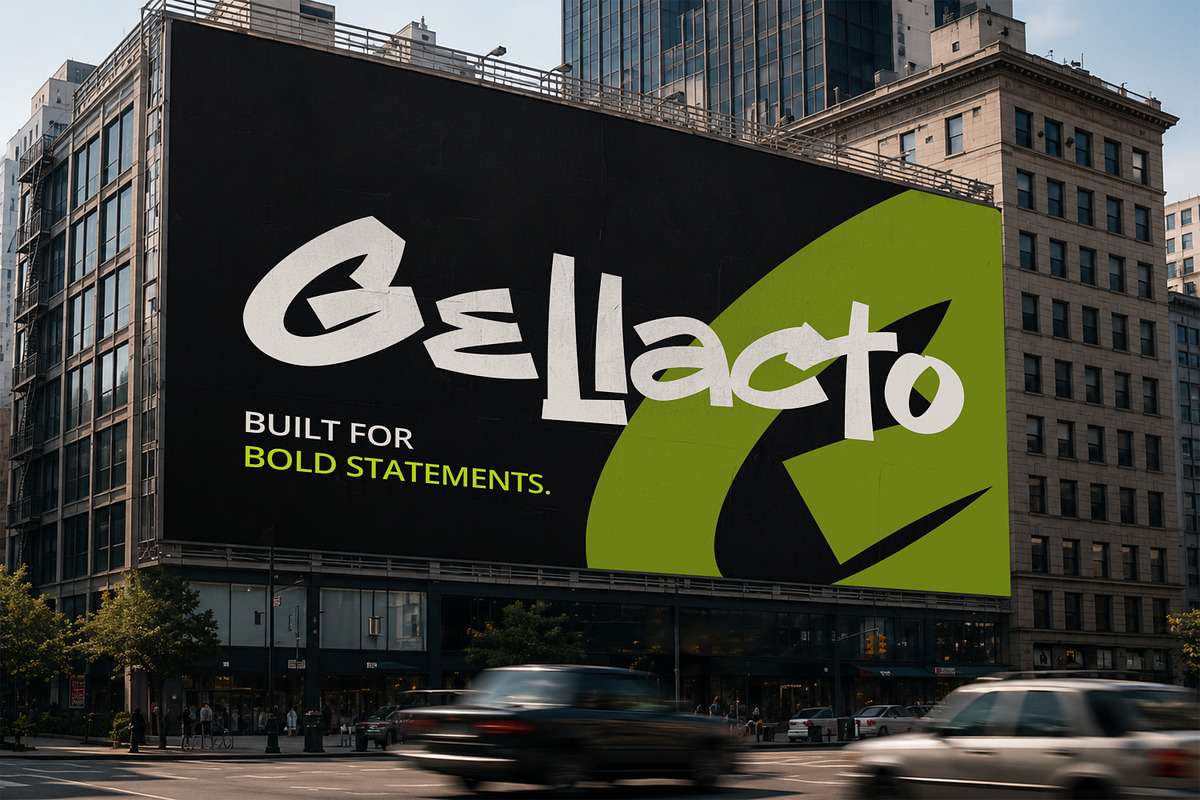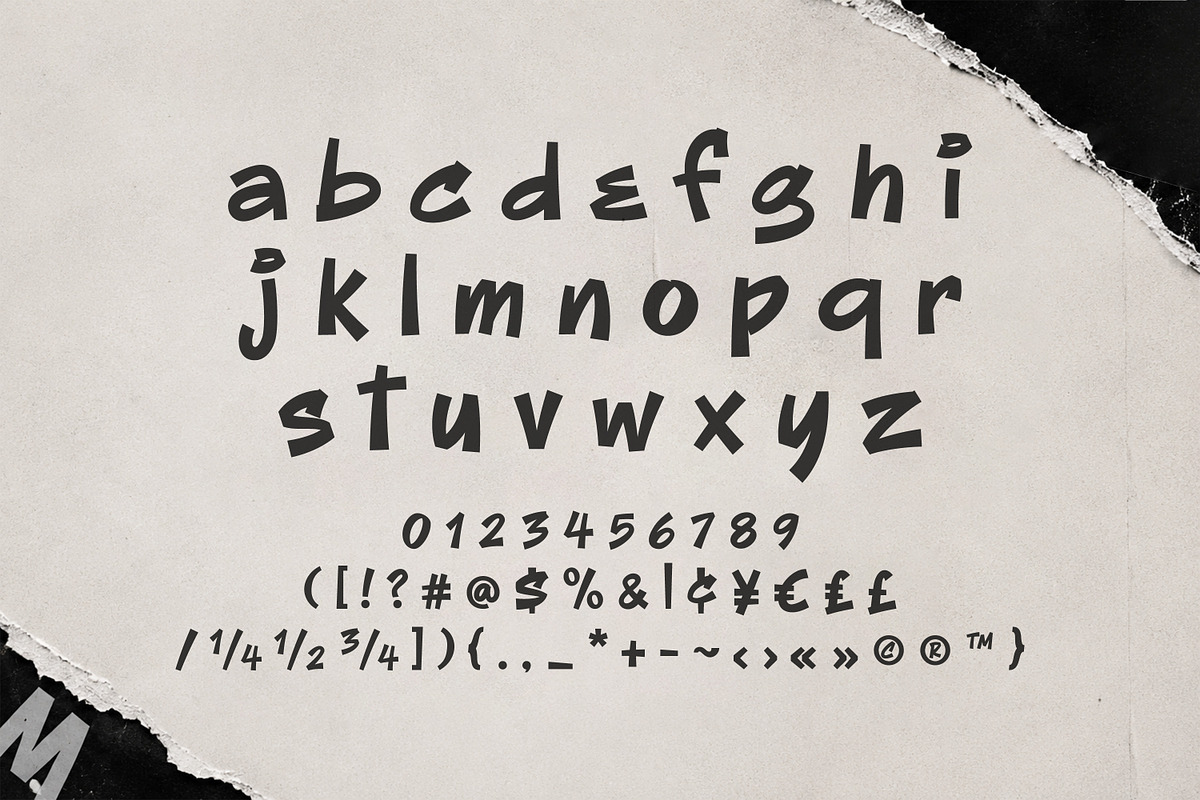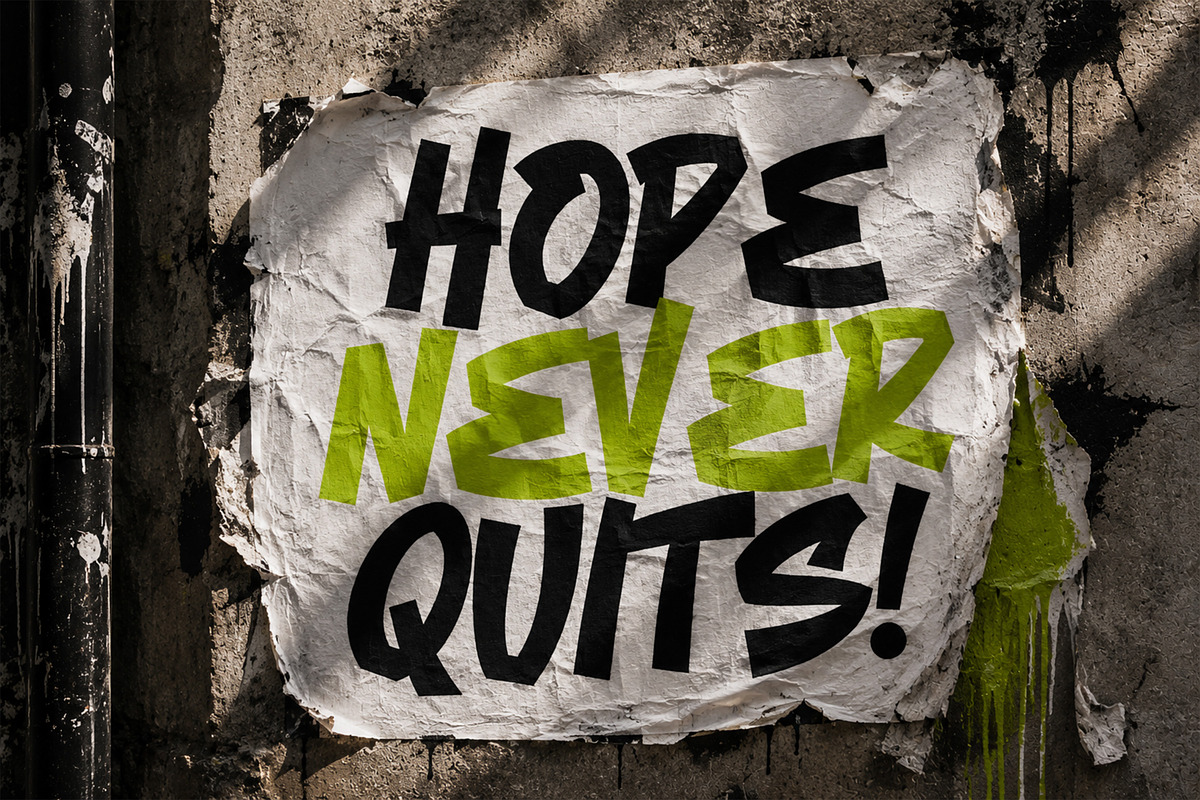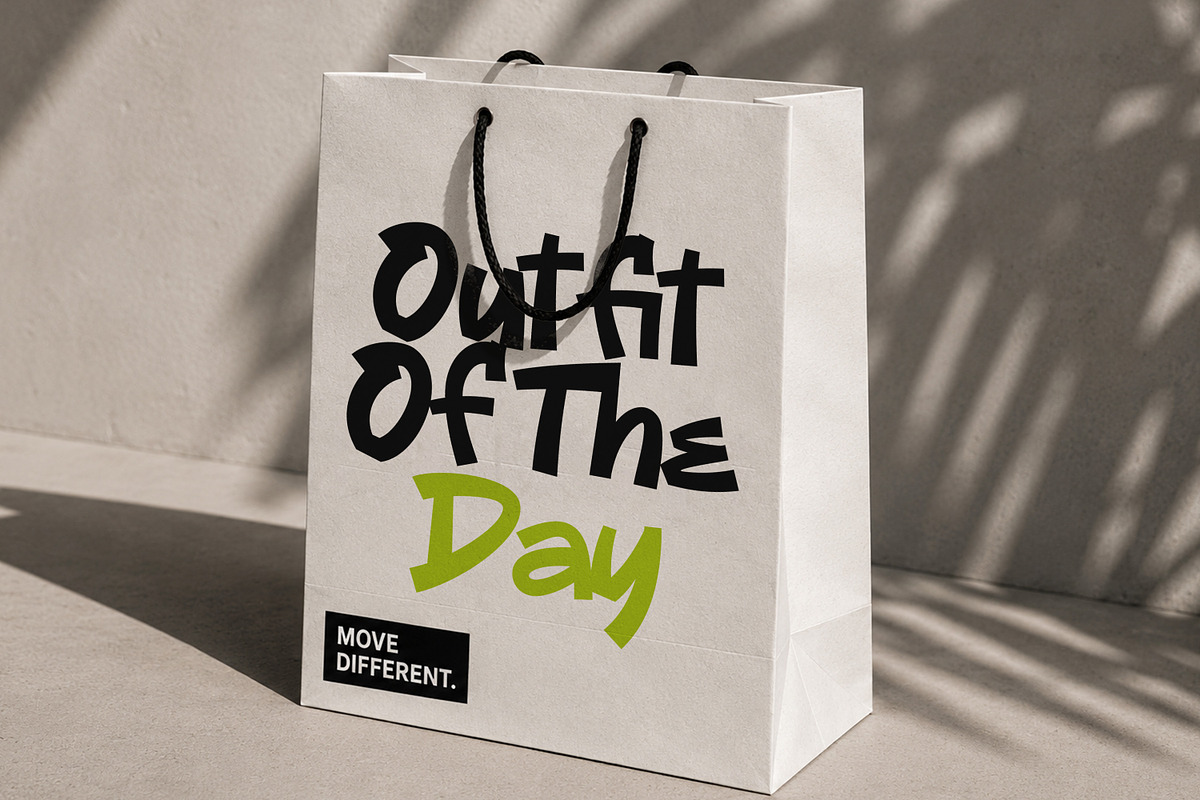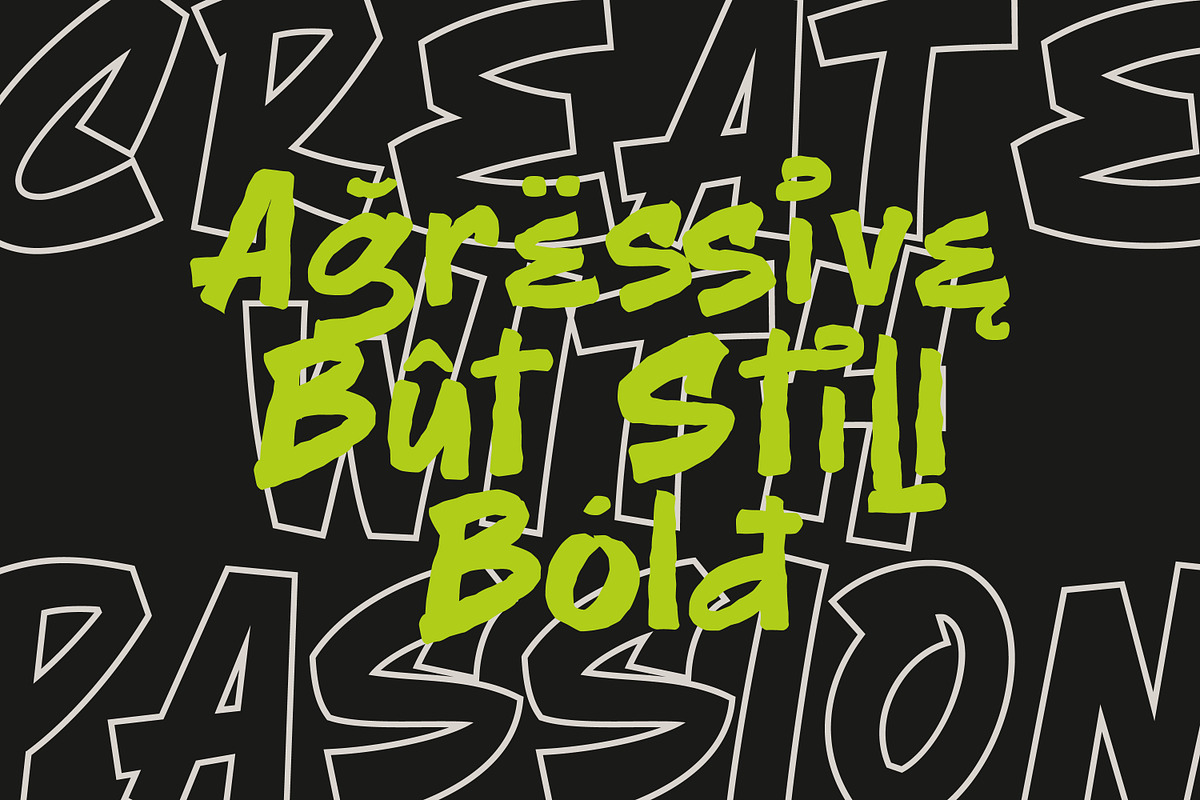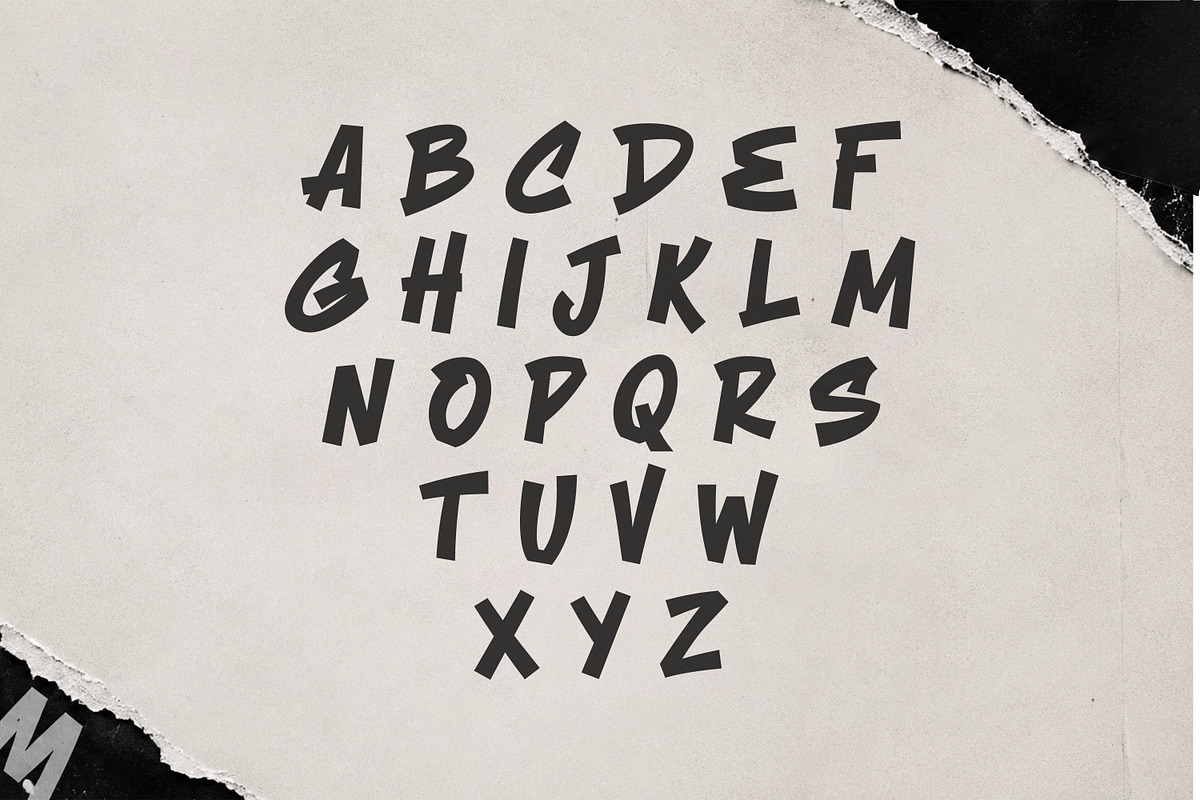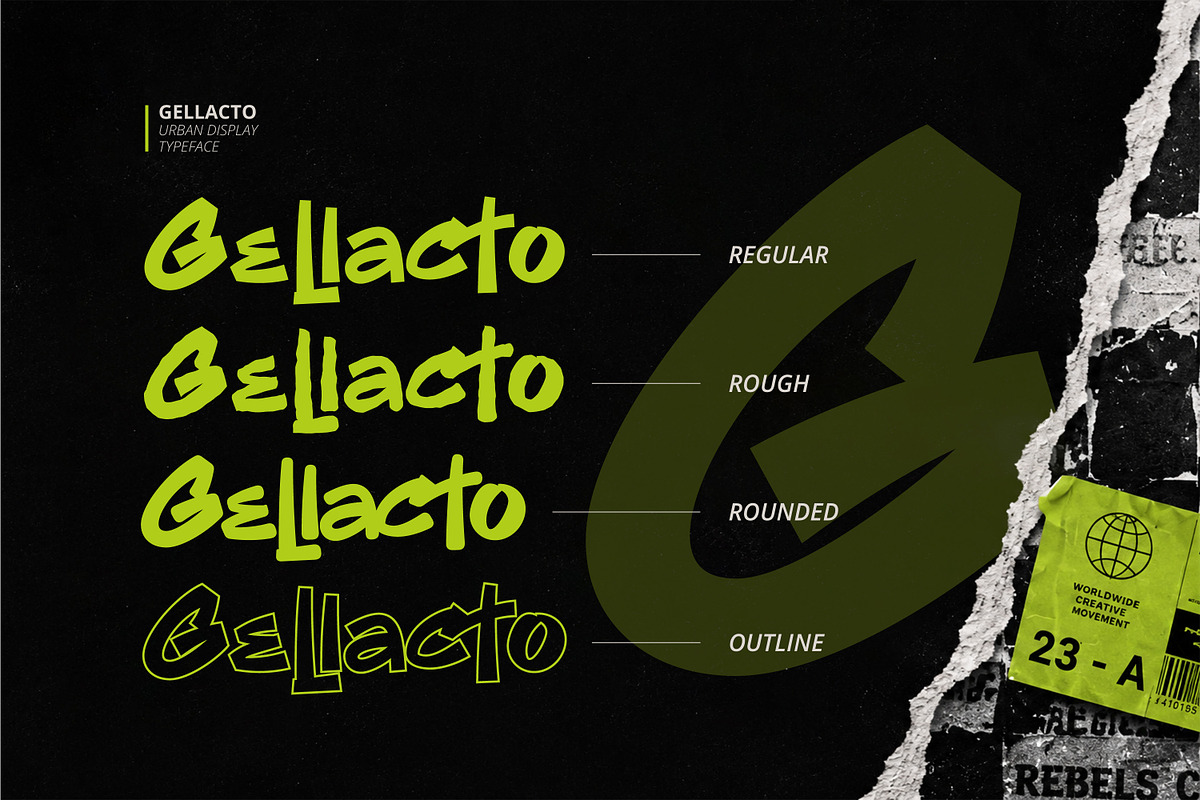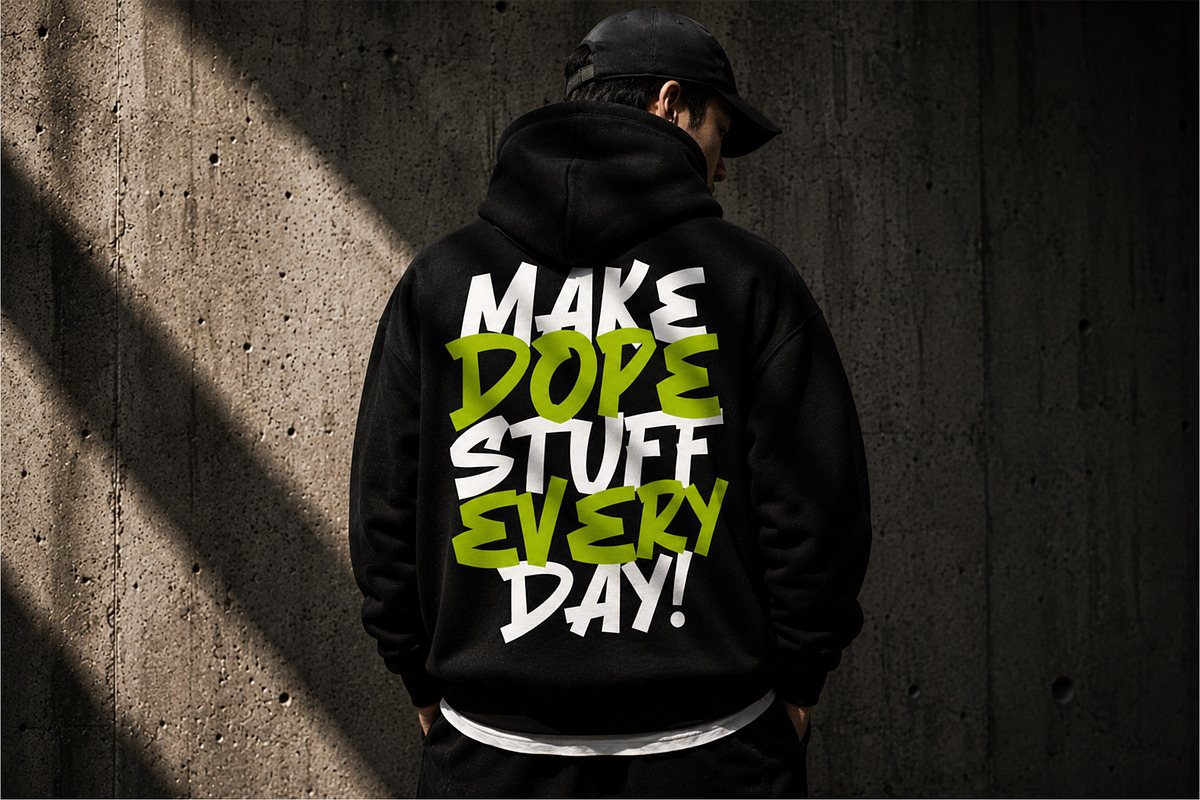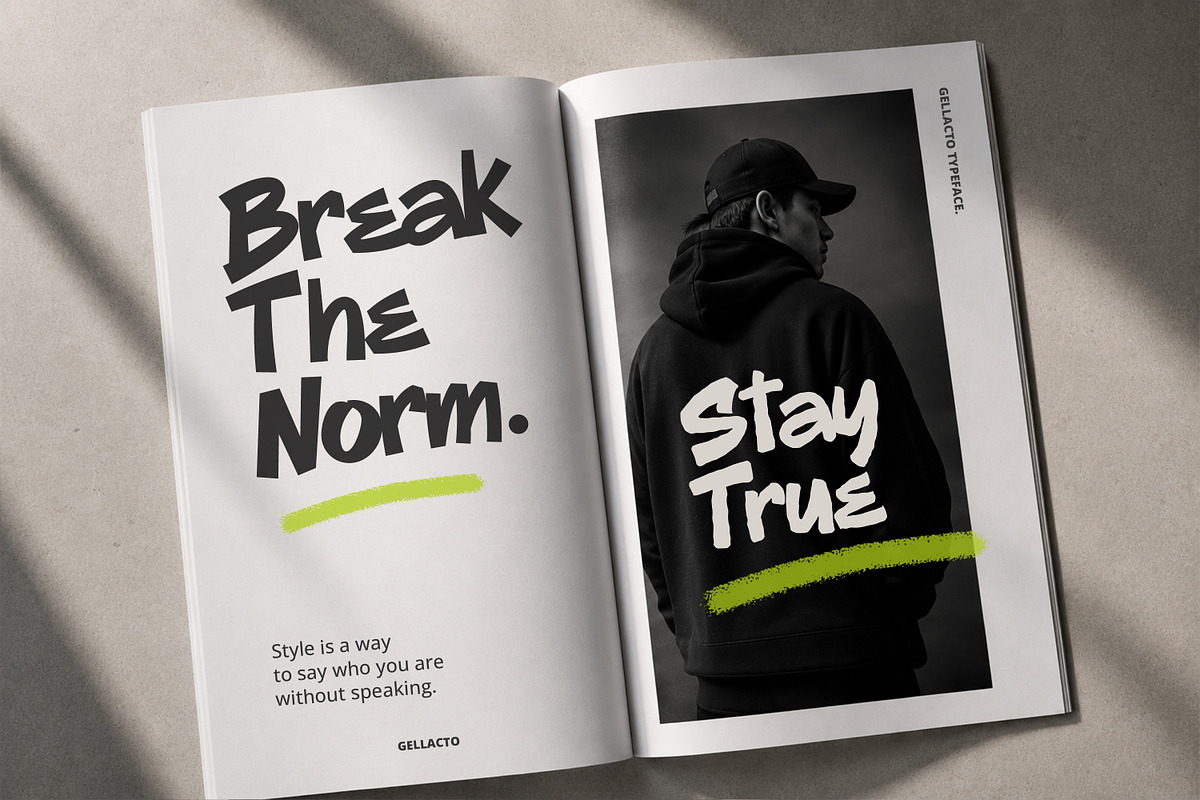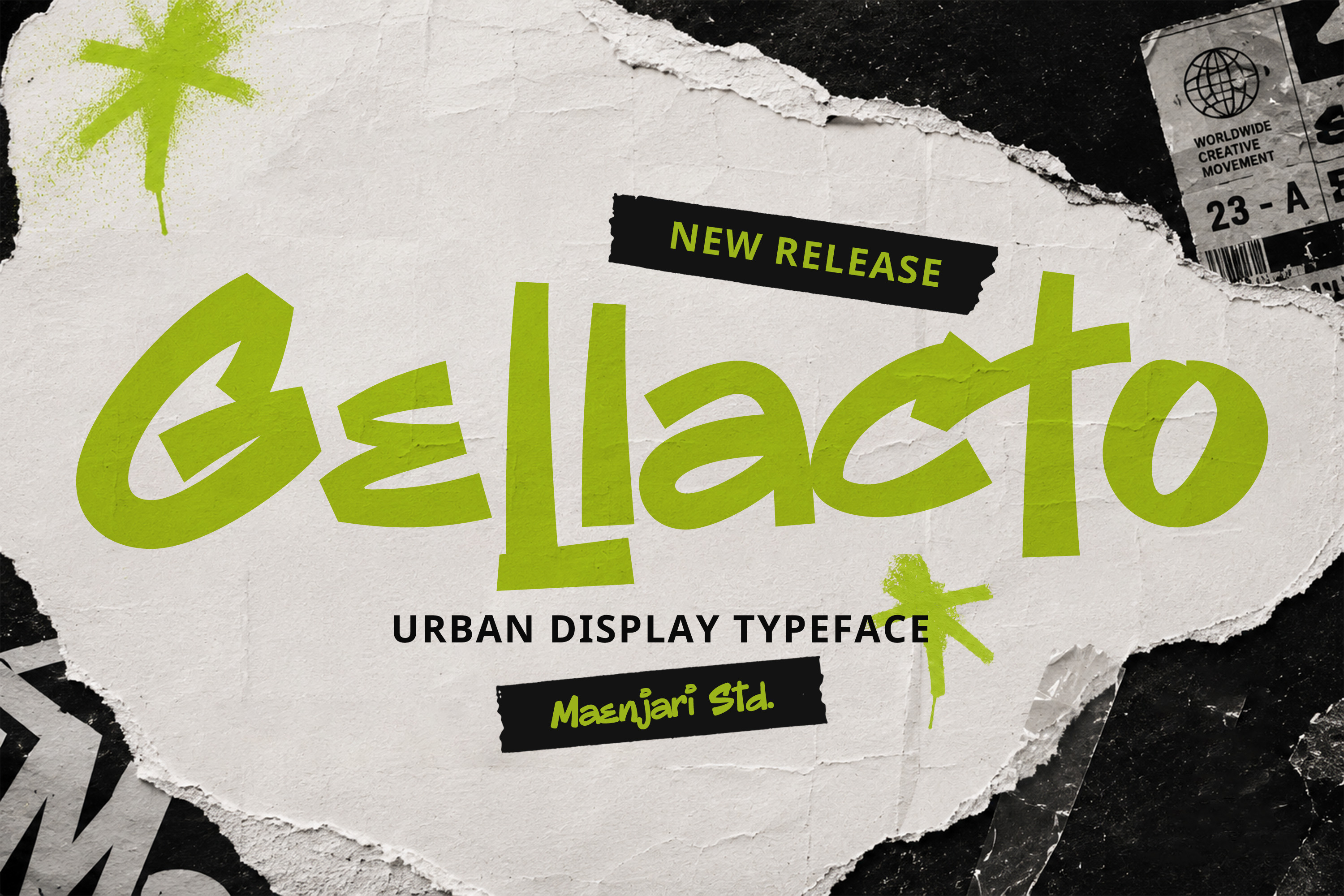
Gellacto | Urban Display Typeface
Bring raw street-level energy to your designs with Gellacto, a bold urban display typeface created by Maenjari Studio. Drawing inspiration from modern graffiti, marker tags, and skate culture, Gellacto is built to make high-impact statements in streetwear, music posters, editorial layouts, and branding.
This versatile family is available in 4 styles: Regular, Rounded, Rough, and Outline. The "Rough" style features textured, weathered edges to mimic street stencils, while the "Outline" style offers a lightweight alternative to contrast with the solid weights. Use these variations to build cohesive visual layers across digital graphics and physical merchandise.
Whether you are designing posters, apparel prints, product packaging, or digital billboards, Gellacto delivers an edgy, contemporary aesthetic. It includes uppercase and lowercase character sets, numbers, standard punctuation, and full multilingual support to handle any layout with ease.
4 Styles: Regular, Rough, Rounded, and Outline
Full Uppercase & Lowercase Character Set
Complete Numbers & Punctuation
Multilingual Support for global projects
Optimized for streetwear branding and display posters